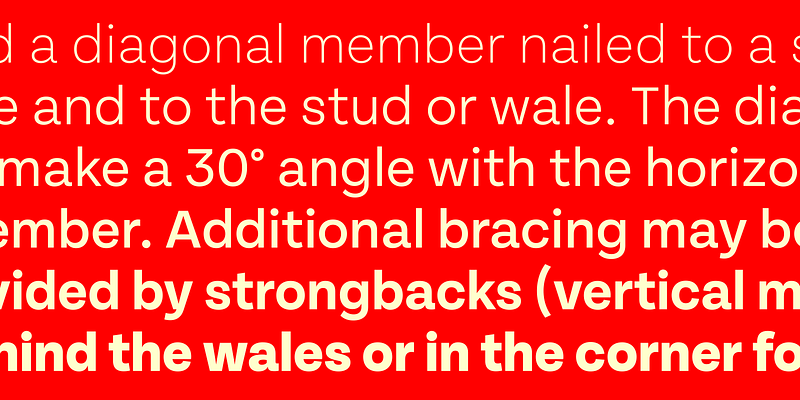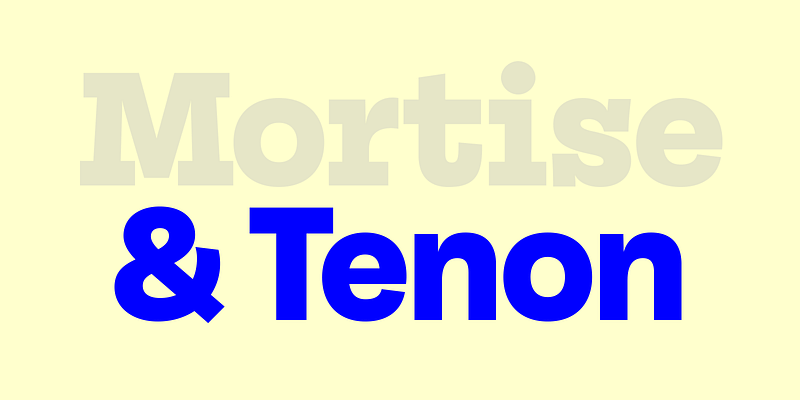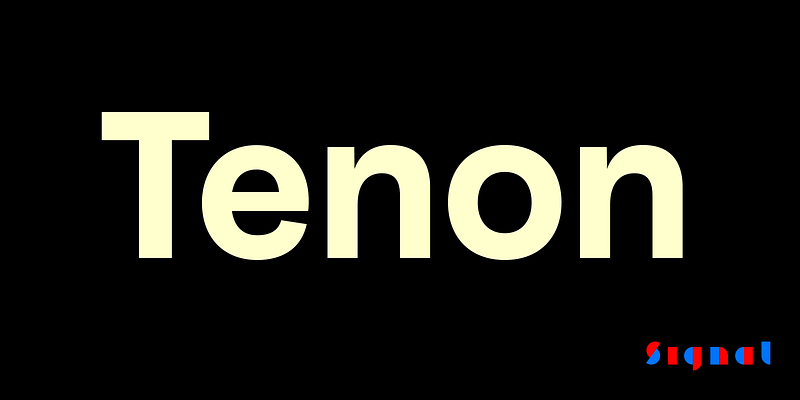
When we trimmed the serifs off our new slab serif family Mortise, we found a plain, efficient sans that marches through the uncanny valley between grotesk and geometric, with almost circular bowls that lend extra energy to the line. Like its sibling, Tenon has open counters, a generous x-height, and wide proportions that suit both small sizes and bold headlines.